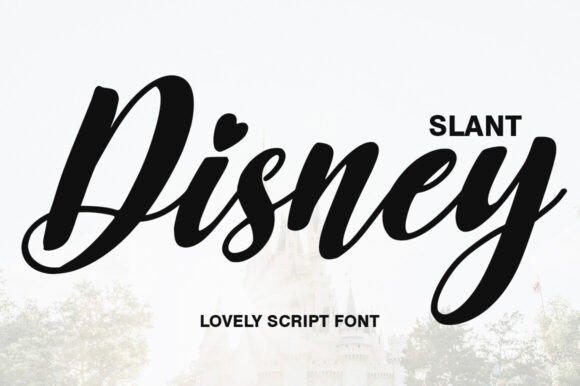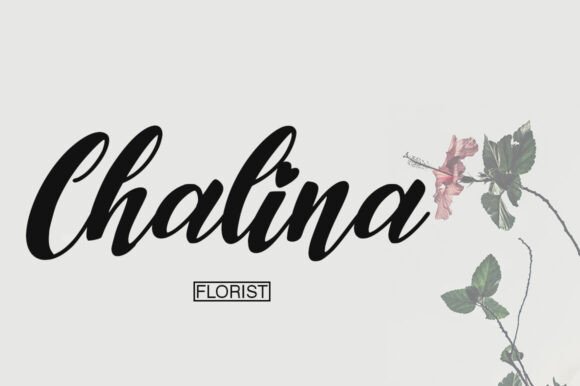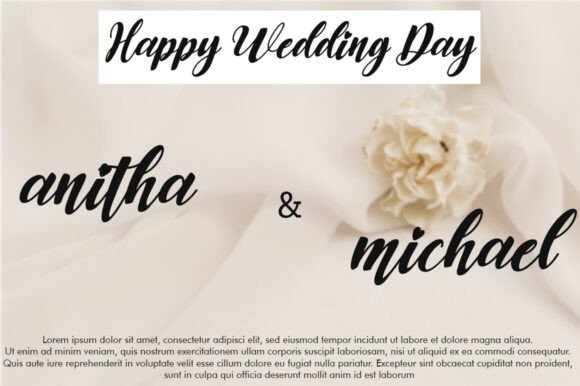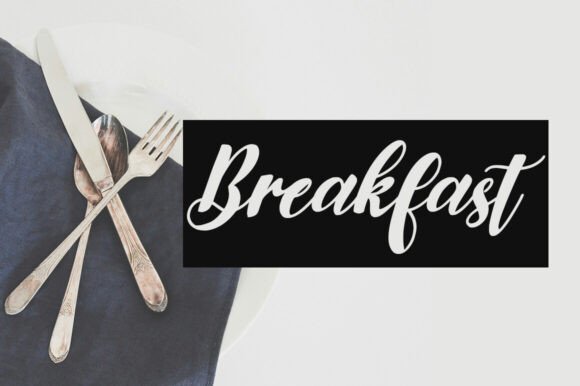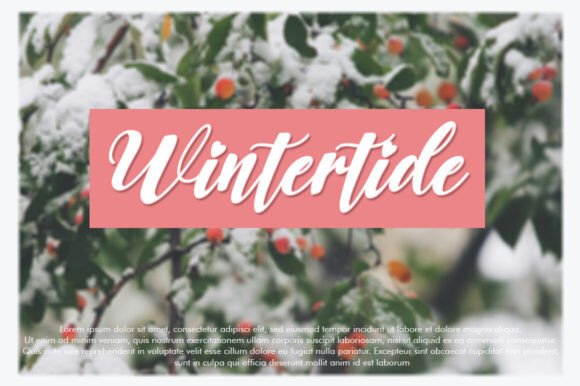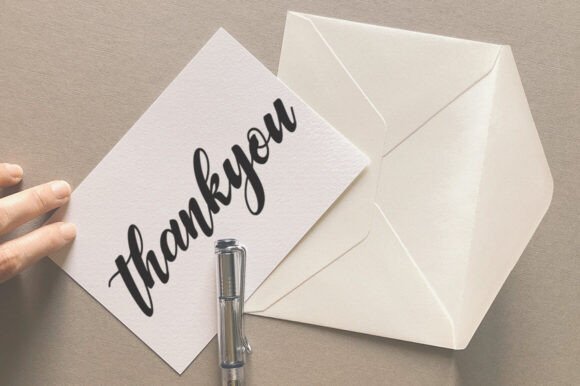
The Magic of Disney Font: Where Design Dreams Come Alive
Have you ever sat at your desk, staring blankly at a blank page, and suddenly a burst of creativity hits you? The ideas start flowing, and before you know it, you’re envisioning a world of wonder and enchantment. For designers, this moment is all too familiar – and it’s exactly what the Disney Font is designed to inspire.
Disney Font, with its elegant slant and versatility, is the perfect companion for any creative project. Whether you’re working on a logo, a brochure, or a website, this font is sure to bring a touch of magic to your design. Its flexible functionality makes it a valuable asset for designers, allowing them to experiment with different styles and applications. With the Disney Font, the possibilities are endless, and the results are truly spellbinding.
Disney Font Key Features
- Unique Characteristics: The Disney Font features a distinctive, whimsical design with rounded edges, smooth curves, and a playful feel, making it perfect for creating magical and nostalgic content.
- Font Family: The Disney Font is part of a larger font family that includes various styles, such as bold, italic, and condensed versions, offering users a range of creative options.
Disney Font Review
At first glance, the Disney Font looks like a dream come true for any Disney fan. The font is designed to evoke the magic and whimsy of the Disney brand, and it’s clear that the designers aimed high.
- The font’s playful and childlike feel is perfect for Disney-themed projects.
- The use of bold and cursive styles adds a nice touch of elegance and sophistication.
- The font is highly legible, even at smaller sizes, which is a must for any font used in graphic design.
- The font may not be suitable for all types of projects, particularly those that require a more serious or professional tone.
- The font’s use of Disney-specific characters and symbols may limit its appeal to non-Disney fans or projects that don’t fit within the Disney brand.
- The font’s weight is quite limited, which may make it difficult to use in certain design contexts.
The Disney Font is a solid choice for any project that requires a touch of Disney magic. While it may not be the most versatile font, it’s perfect for Disney-themed projects, and its playful feel is sure to delight fans of all ages. Overall, I’d give it 4 out of 5 stars.
The Disney Font is perfect for creating whimsical and magical designs, such as:
- Wedding invitations and party decorations
- Children’s book illustrations and storybooks
- Marketing materials and branding for family-friendly businesses
Alternatives to Disney Font
Playfair Display is a high-end serif font that works well for luxury brands, weddings, and high-end marketing materials. It’s ideal for creating a sense of sophistication and elegance. Compared to Disney Font, Playfair Display is more refined and less playful, making it suitable for formal occasions.
Great Vibes is a modern script font that’s perfect for creating a fun and lively atmosphere. It’s great for branding, social media, and advertising campaigns that need a touch of whimsy. While Disney Font is more childlike and cartoonish, Great Vibes has a more mature and elegant feel to it.